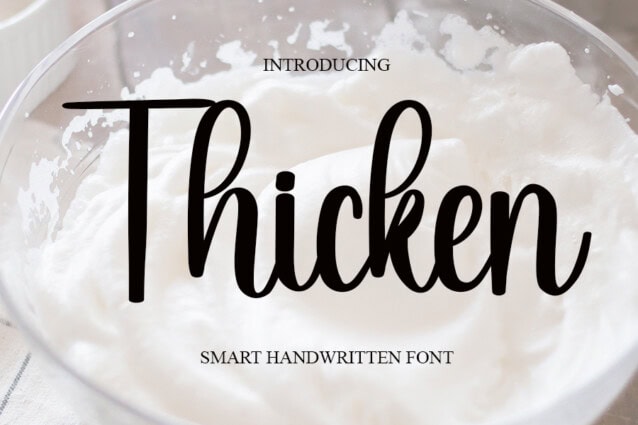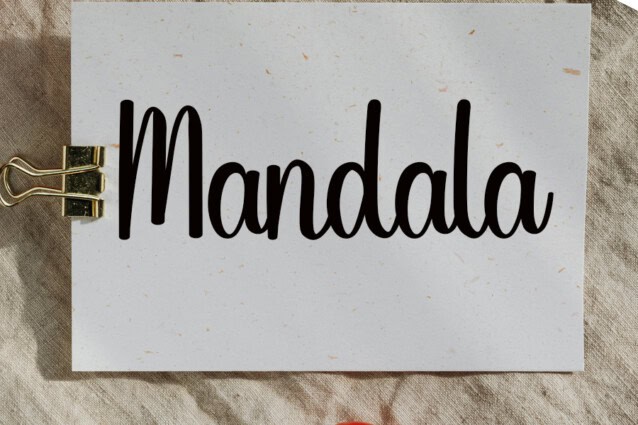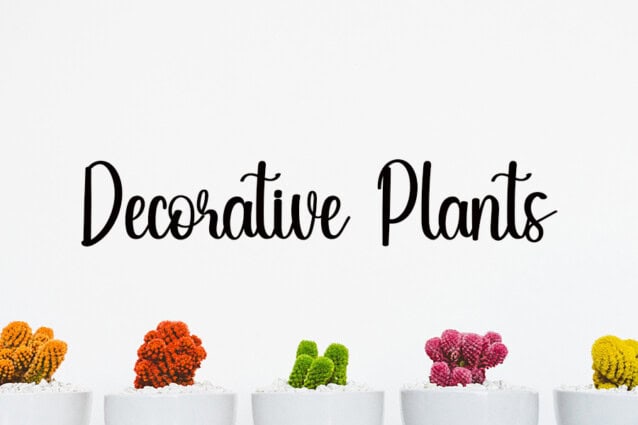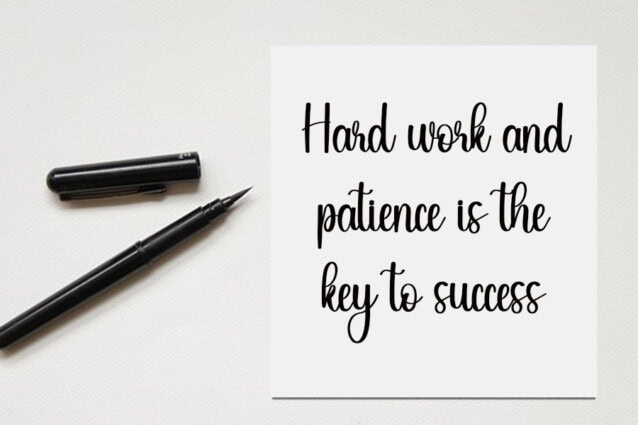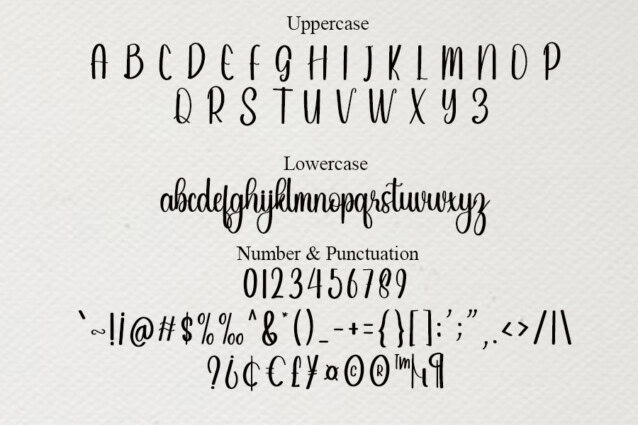
Thicken Script Font
Thicken Script Font is an exquisite handwritten font, masterfully designed to become a true favorite. It maintains its classy calligraphic influences while feeling contemporary and fresh. Fall in love with it and bring your projects to the highest levels!